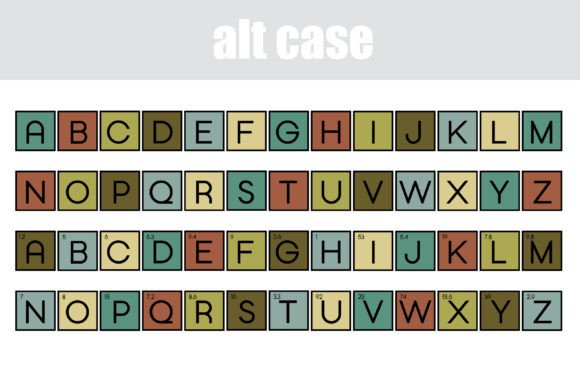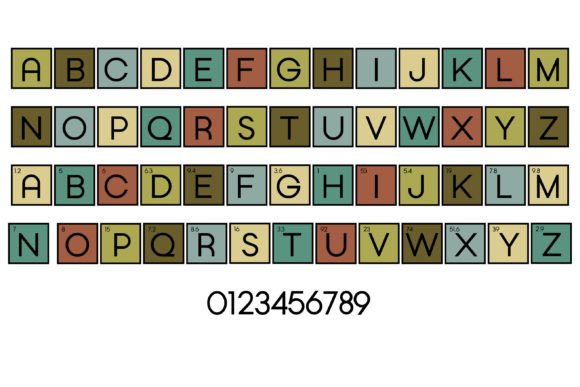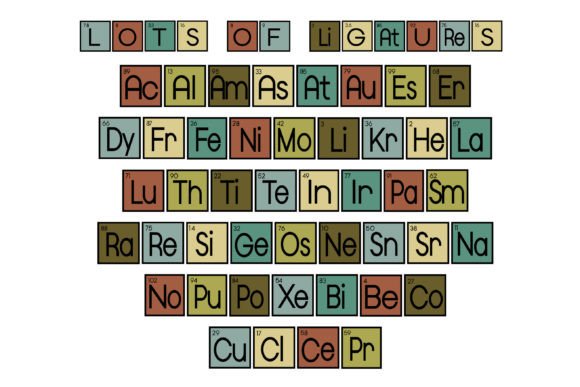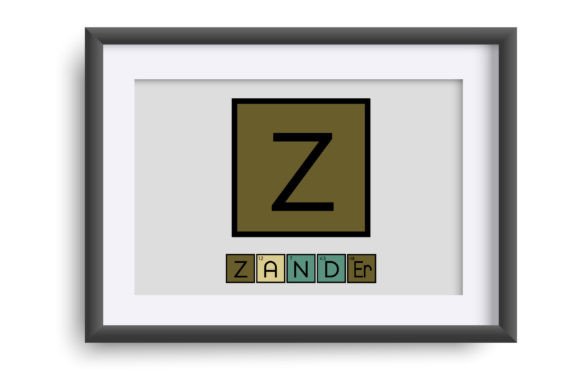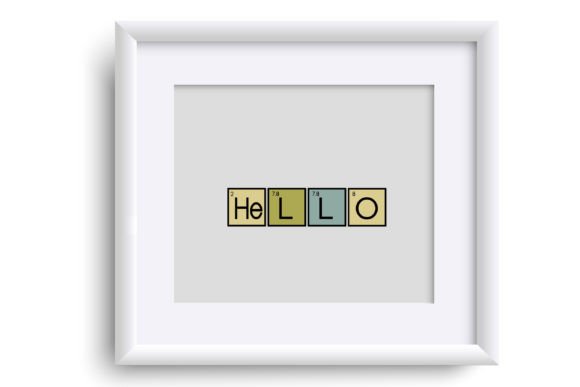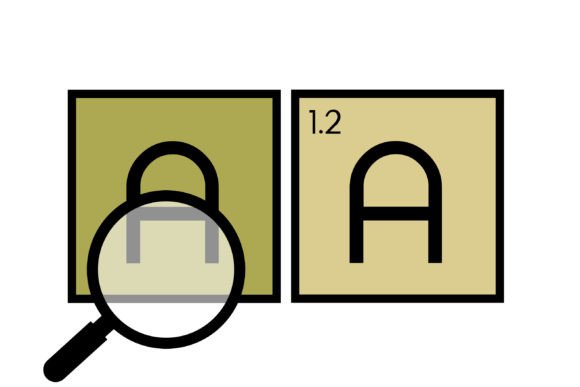
Meet the Atomic Dad Font: A Bold New Way to Make Your Designs Shine
Remember that moment when you were brainstorming ideas for a project, and suddenly, a spark of creativity hit you? That’s exactly what happened when I stumbled upon the Atomic Dad Font. This full-color font is more than just a stylish addition to your design arsenal – it’s a powerful tool that can elevate your titles, displays, and posters to the next level.
Developed with a masculine color palette, the Atomic Dad Font features the periodical table of elements in a bold and eye-catching way. With its unique combination of lowercase letters displaying atomic weights and uppercase letters without, this font is a true standout. Plus, with its numerous ligatures representing real elements, you’ll have endless possibilities to get creative. Whether you’re a seasoned designer or just starting out, the Atomic Dad Font is an invaluable addition to your toolkit.
Atomic Dad Font Key Features
• Font Family: Atomic Dad Font is a unique sans-serif font designed for digital use.
• Character Count: Contains 250+ characters, including uppercase and lowercase letters, numbers, and punctuation.
• Unique Characteristics: Features a bold, geometric style with a distinctive “Atomic Dad” feel, making it perfect for bold typography and headlines.
Review of Atomic Dad Font
Overall, I’m quite impressed with the Atomic Dad Font. The designer has done a great job of capturing the essence of 80s and 90s nostalgia in this retro-inspired font.
• ✨ The font has a very distinct, quirky feel to it, making it perfect for adding a touch of personality to your designs.
• ✨ The bold weights are particularly well-done, with a nice level of contrast that makes them easy to read.
• ✨ The font is highly customizable, with a wide range of OpenType features that allow you to fine-tune the look and feel.
• ⚠️ The font can feel a bit over-the-top at times, with some characters looking a bit too “out there” for certain designs.
• ⚠️ The font doesn’t include as many language support options as some other fonts, which can limit its use in certain contexts.
The Atomic Dad Font is a great choice for designers looking to add a bit of retro flair to their work. While it may not be perfect for every project, it’s definitely a solid addition to any font collection.
Use the Atomic Dad Font for creating bold, eye-catching headings and titles.
Combine the Atomic Dad Font with other fonts to create a unique and visually appealing typography.
Use the Atomic Dad Font in logos, branding materials, and other design elements where a bold and modern look is desired.